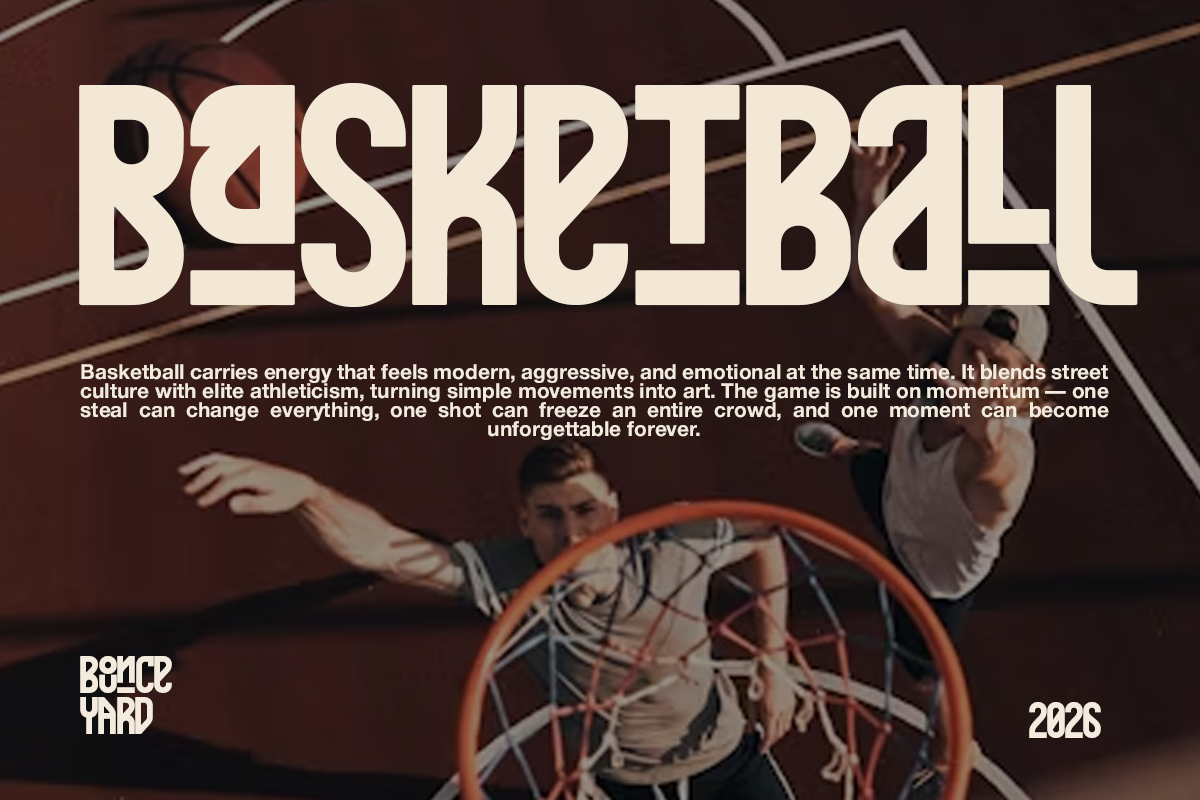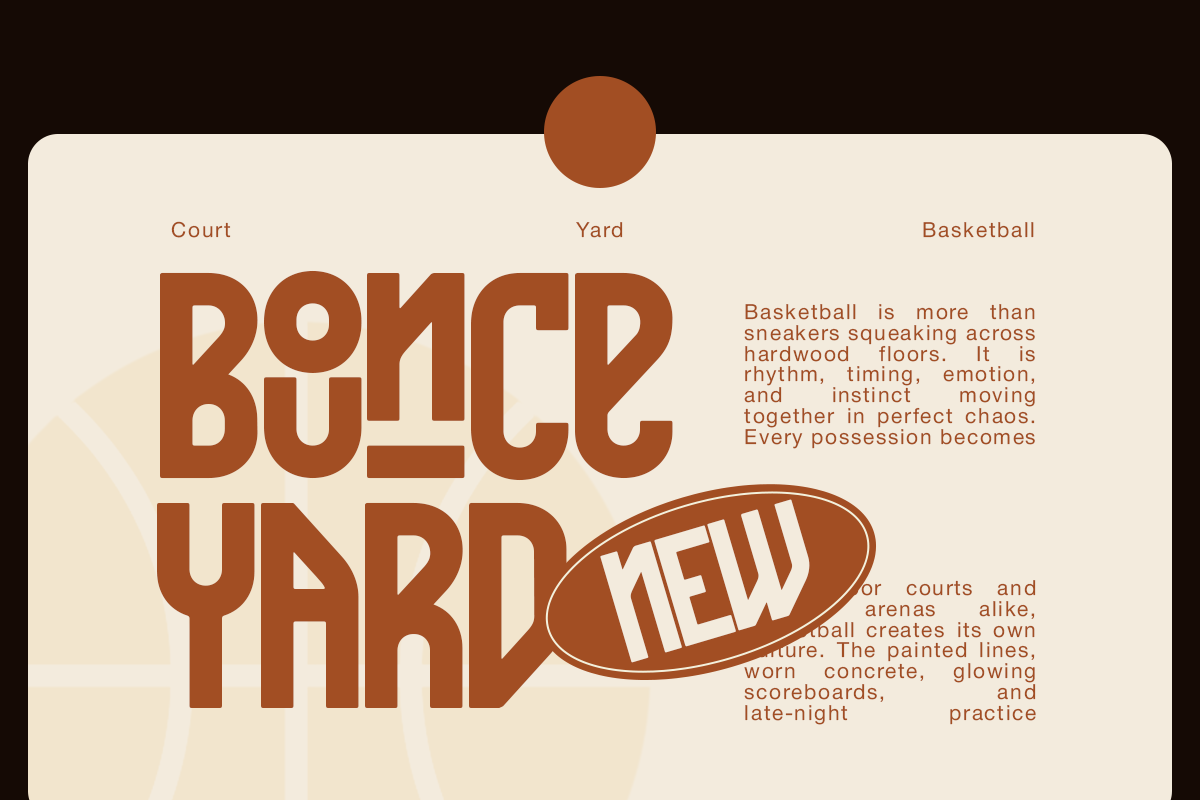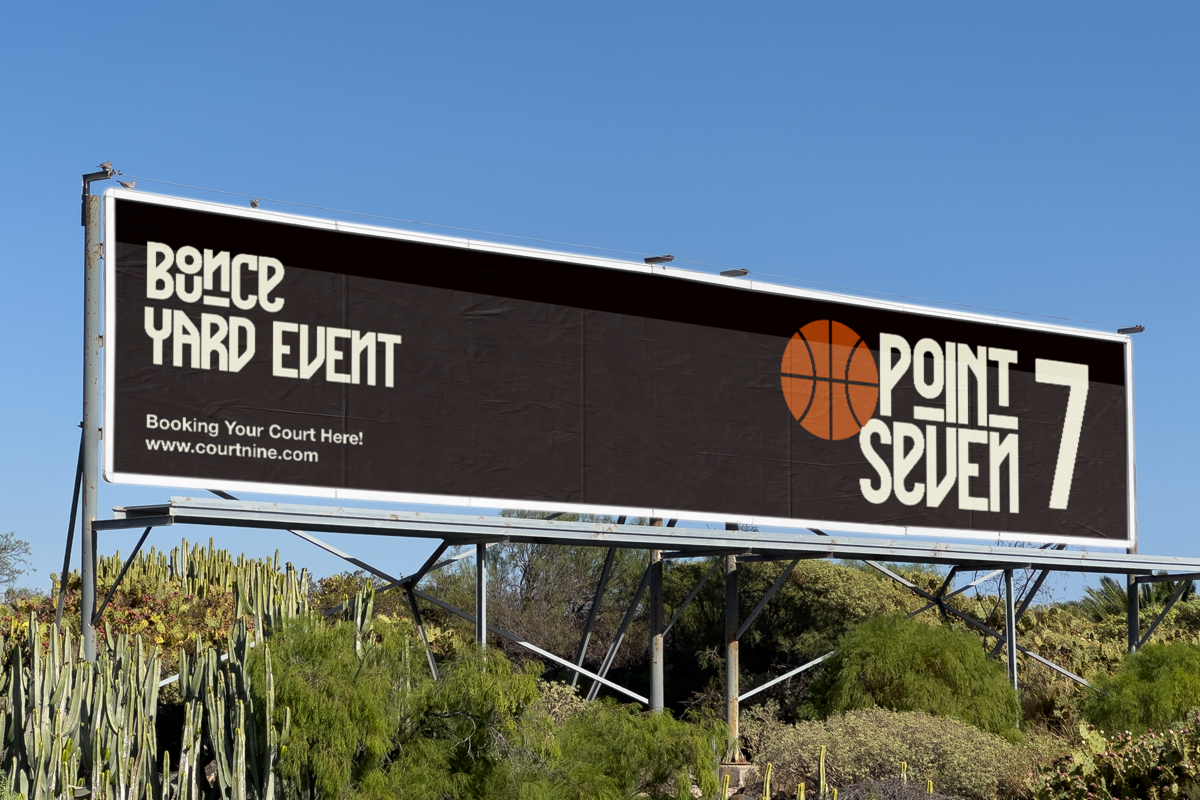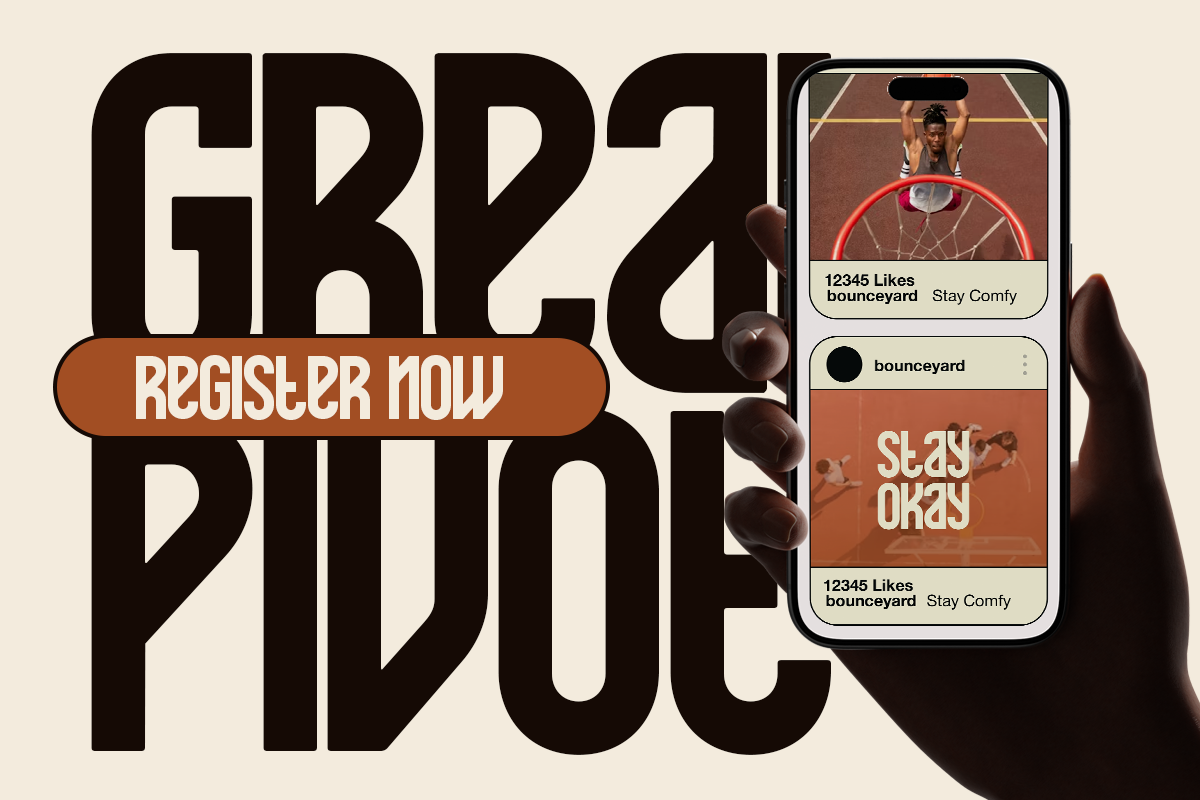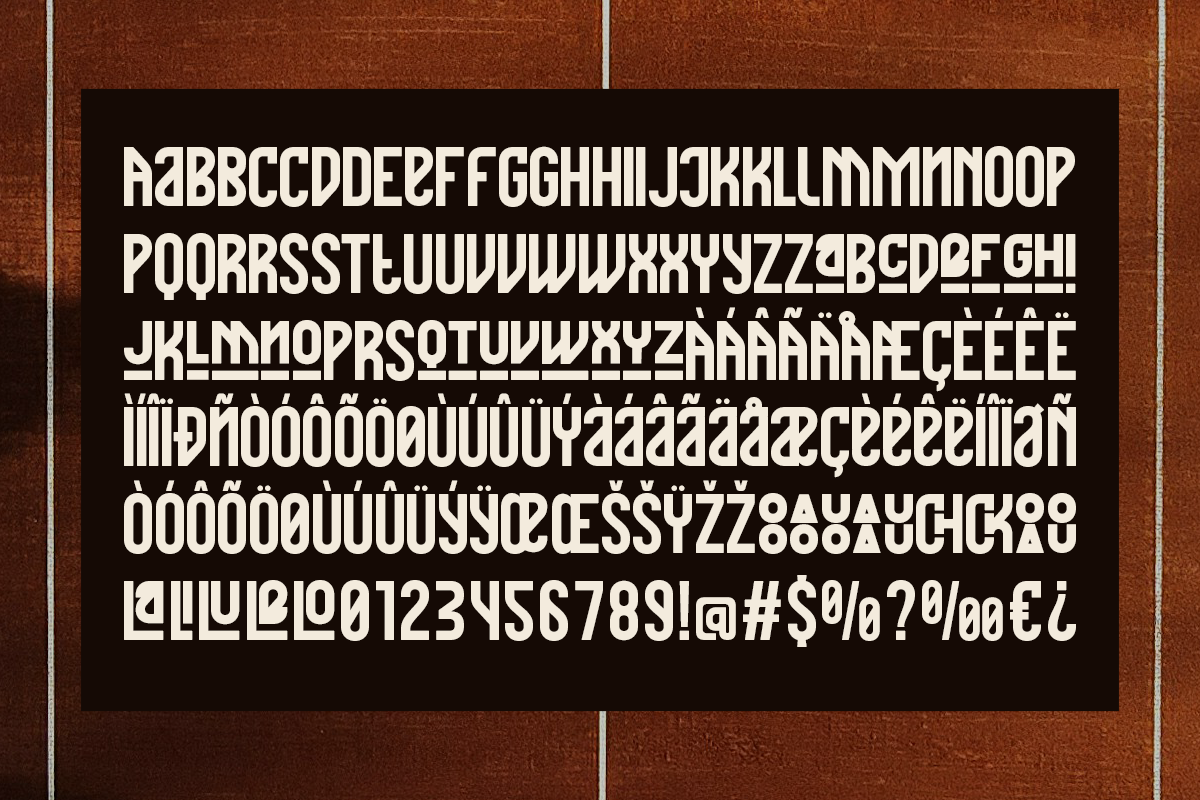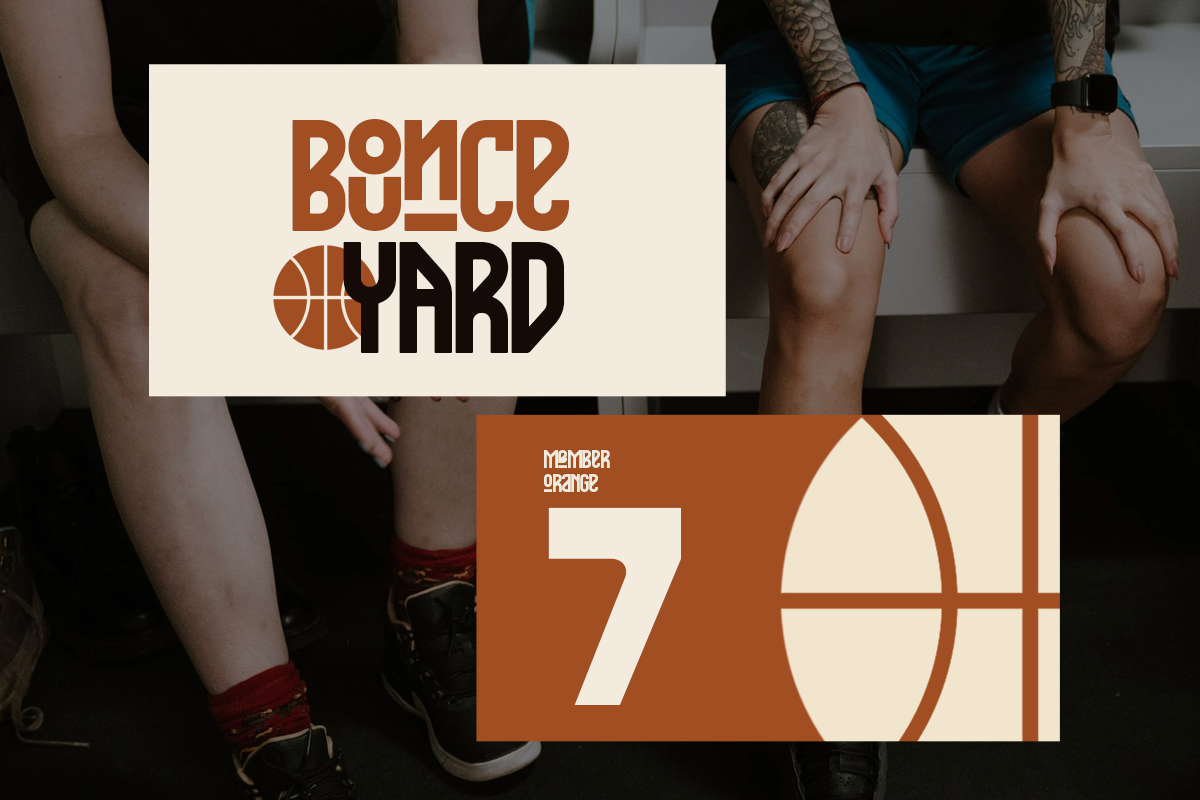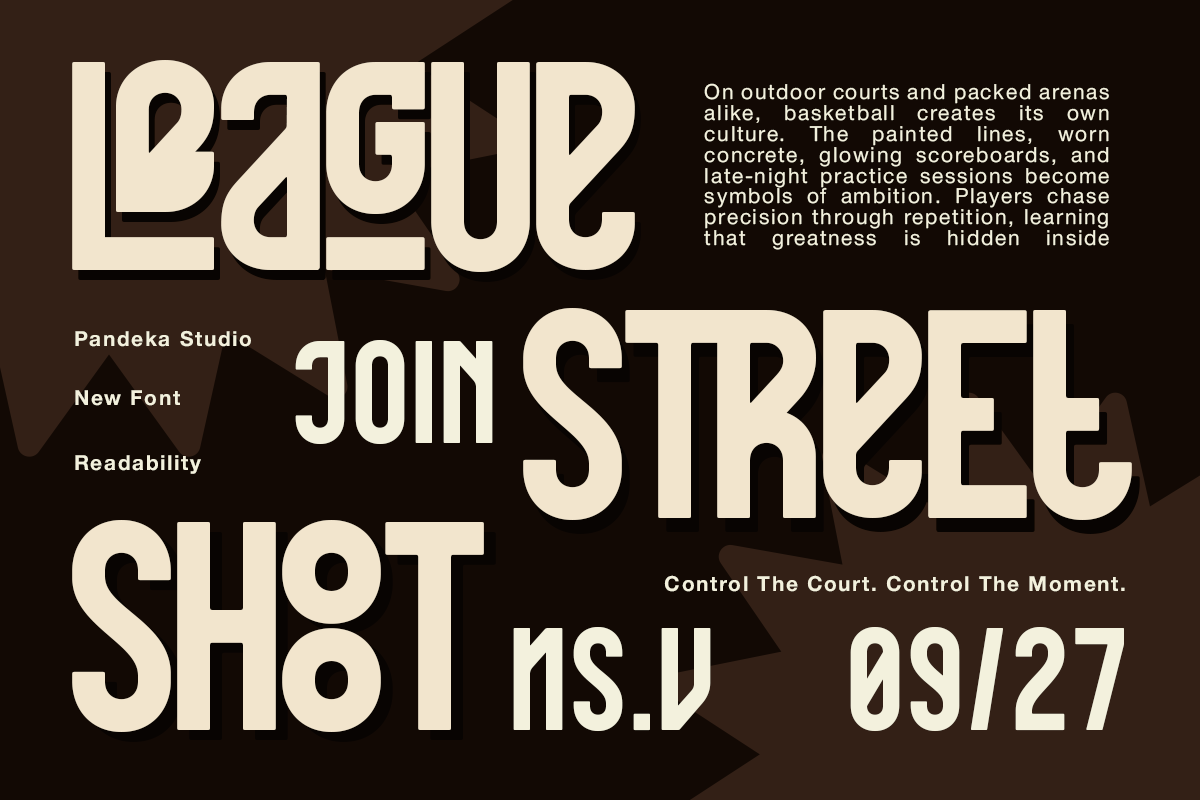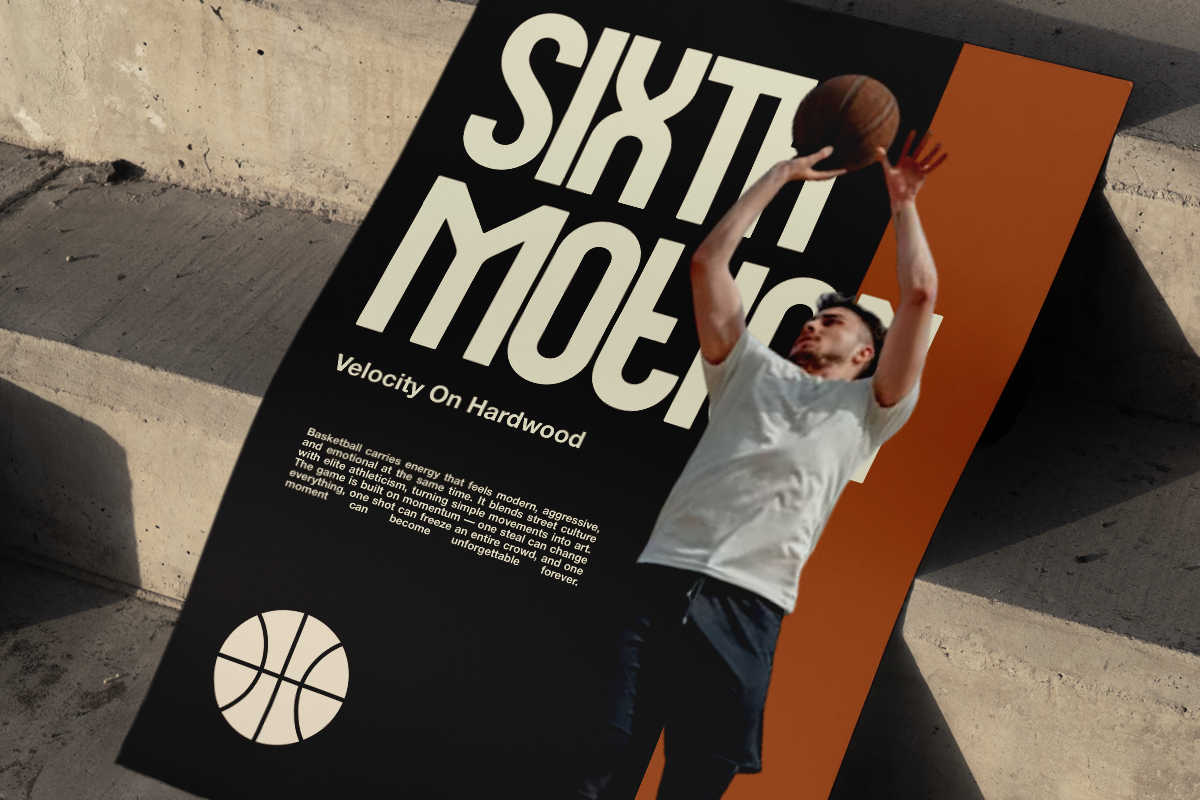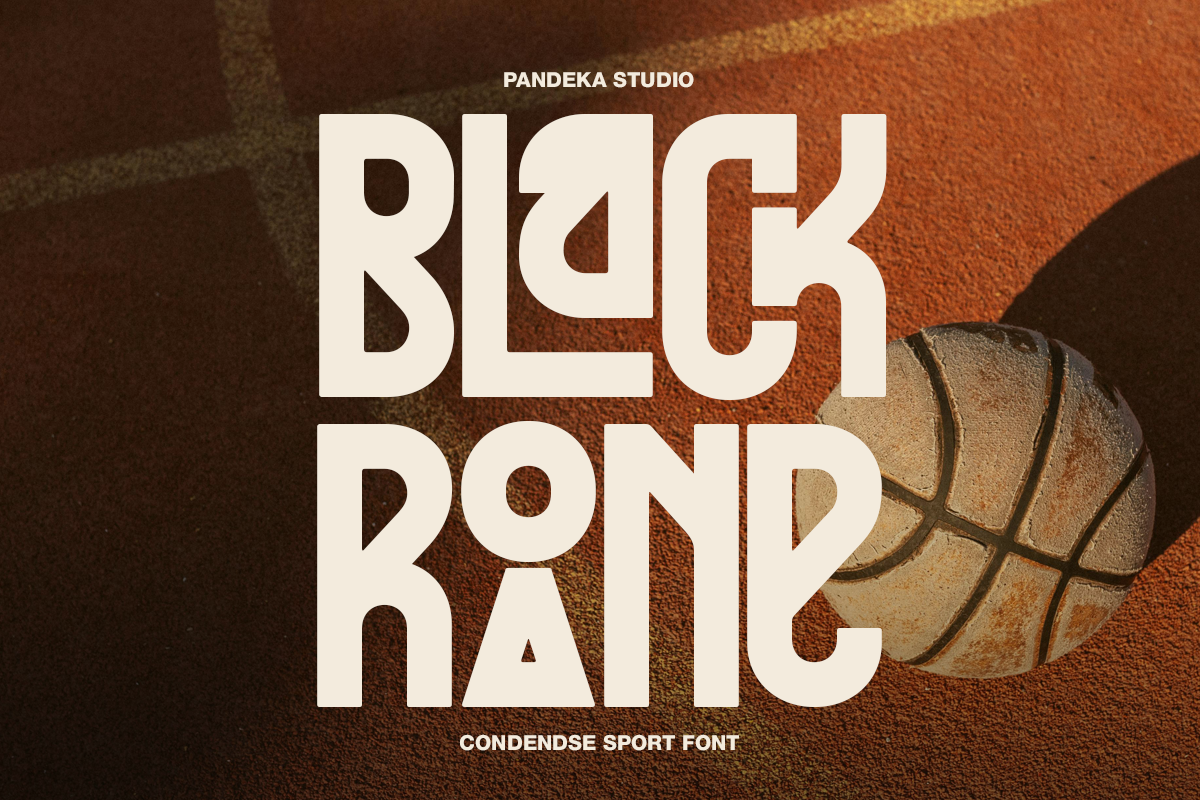
Black Roane - Condensed Sport Font
Black Roane is a bold condensed sport font designed with strong geometric shapes, sharp athletic energy, and a modern vintage sports aesthetic. Its powerful letterforms create a dynamic and competitive look, making it perfect for sports branding, basketball posters, team identities, streetwear designs, event promotions, packaging, social media graphics, and bold headline typography. The condensed structure gives every composition a compact, impactful, and energetic visual presence.
Designed in a single Regular style, Black Roane comes with 32+ unique alternates & ligatures that add flexibility and unique stylistic combinations for creative layouts. This font is ideal for basketball branding, sports posters, jersey designs, athletic logos, tournament promotions, urban merchandise, gym visuals, and modern sporty editorial projects.
Full Character Set: Uppercase, lowercase, numbers, symbols, and punctuation
32+ Unique Alternates and Ligatures